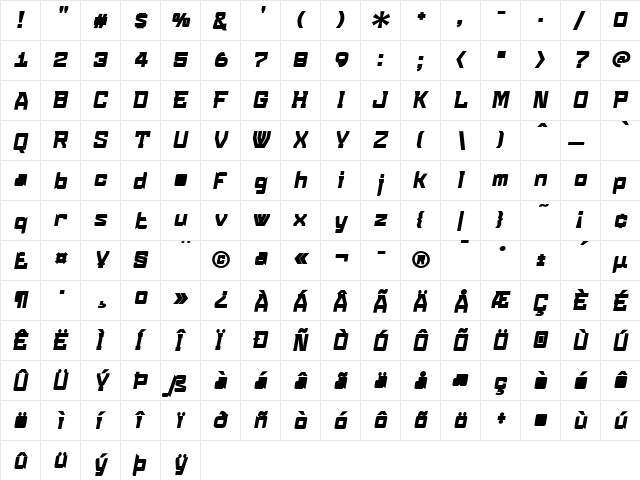
Konvexist Bold Font Preview
Konvexist Bold
Konvexist Bold Font Details
Design Context for Konvexist Typeface
Konvexist is a composed and adaptable typeface that performs quietly and consistently across a wide range of design contexts. The heavy weight commands attention and anchors typographic hierarchies.